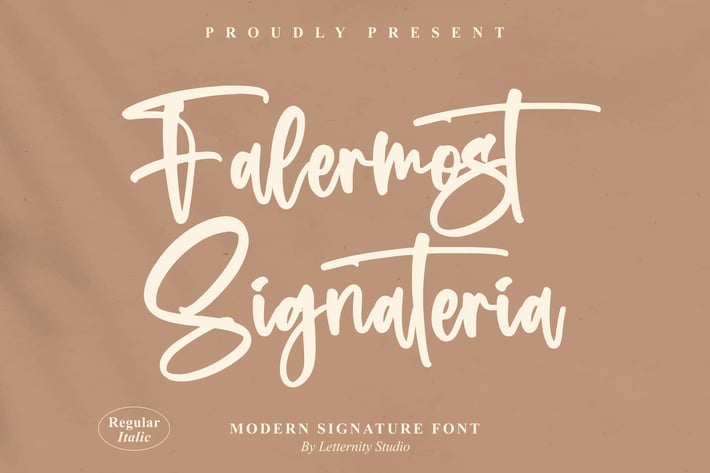
Falermost Modern Signature Font
Falermost Signateria is a modern signature font designed to bring a touch of elegance and sophistication to your designs. With its sleek and stylish strokes, this font captures the essence of handwritten signatures while maintaining a polished, professional look. Perfect for high-end branding and luxury design projects, Falermost Signateria offers an air of refinement and grace.
Elegant, modern signature style
Sleek and stylish strokes with a polished finish
Perfect blend of sophistication and readability
Includes Regular and Italic styles
Ideal for both digital and print media
Luxury branding and logo design
High-end product packaging
Wedding invitations & elegant stationery
Social media posts with a sophisticated flair
Personal branding & signature logos
Business cards with a premium look
Professional portfolios & resumes
Stylish invitations for formal events
Elegant, refined, and effortlessly stylish — Falermost Signateria elevates your design projects with a touch of class.*